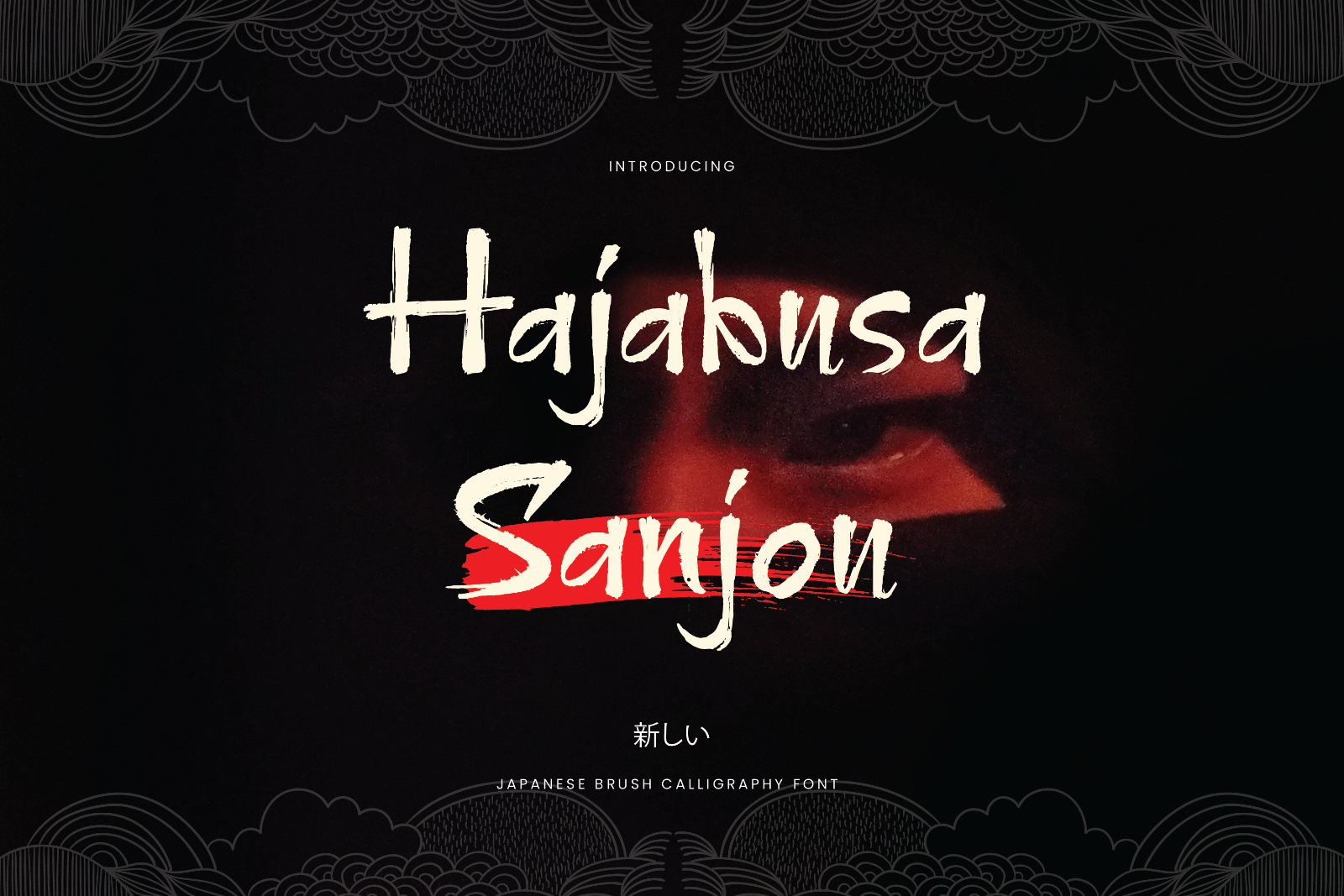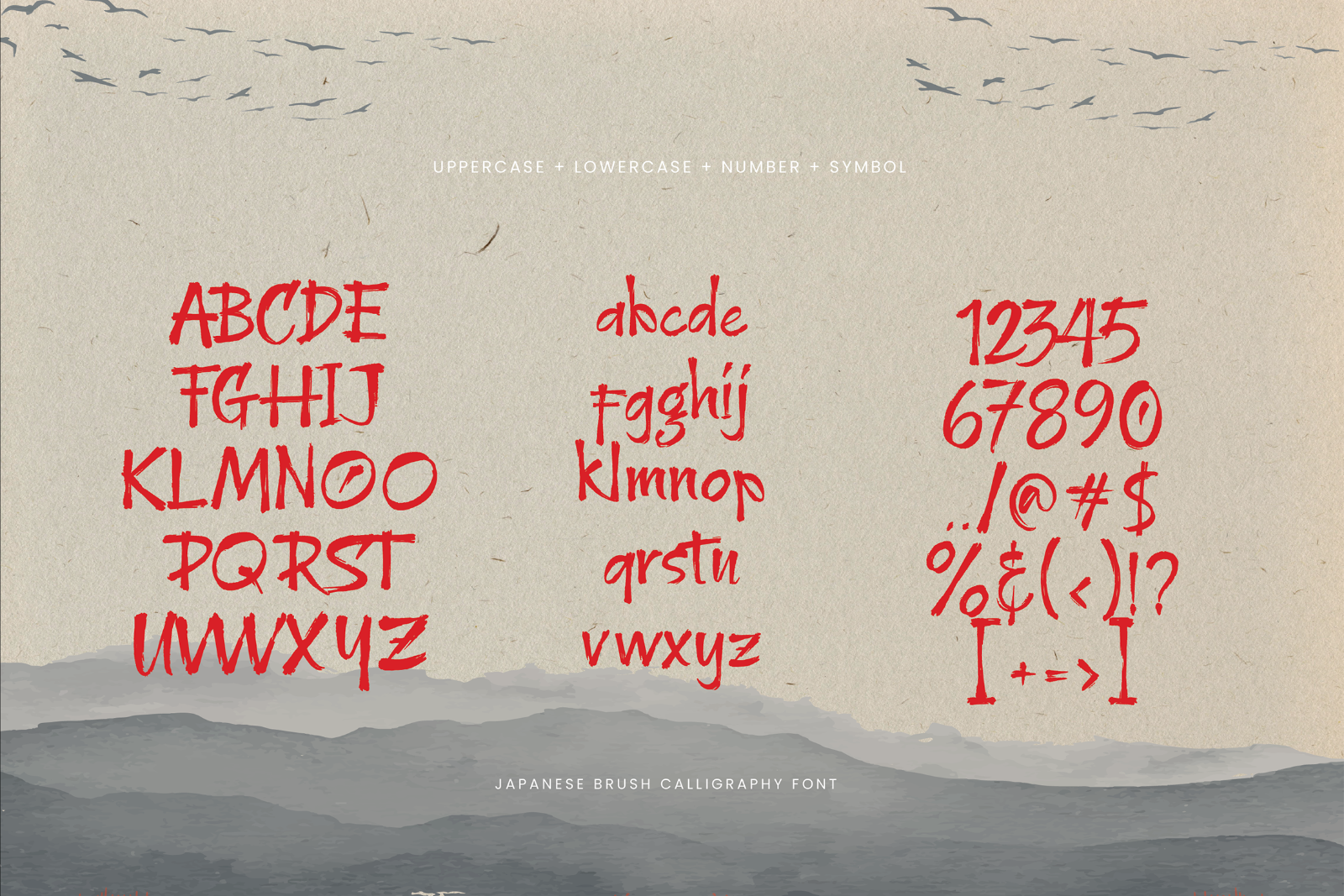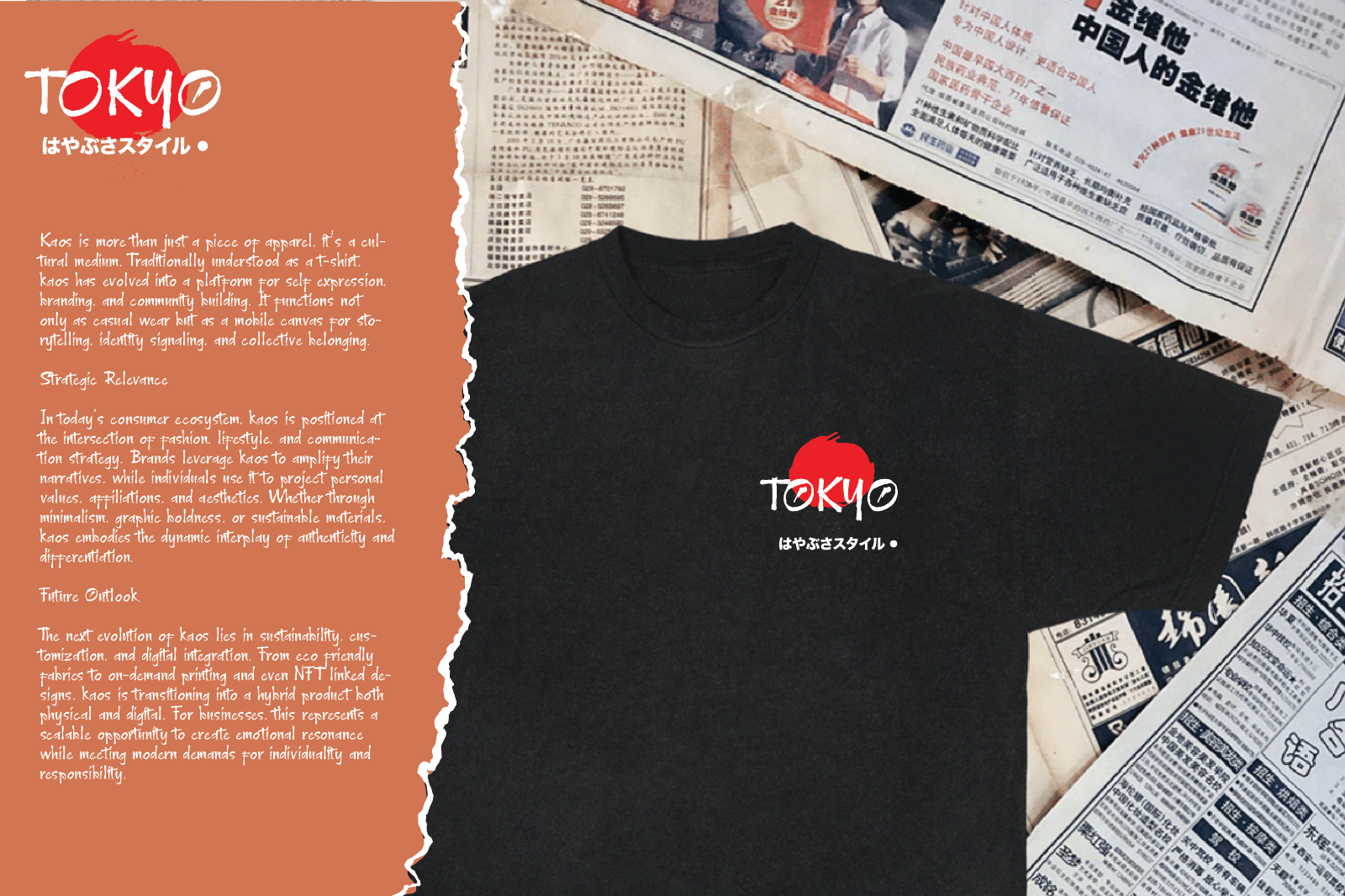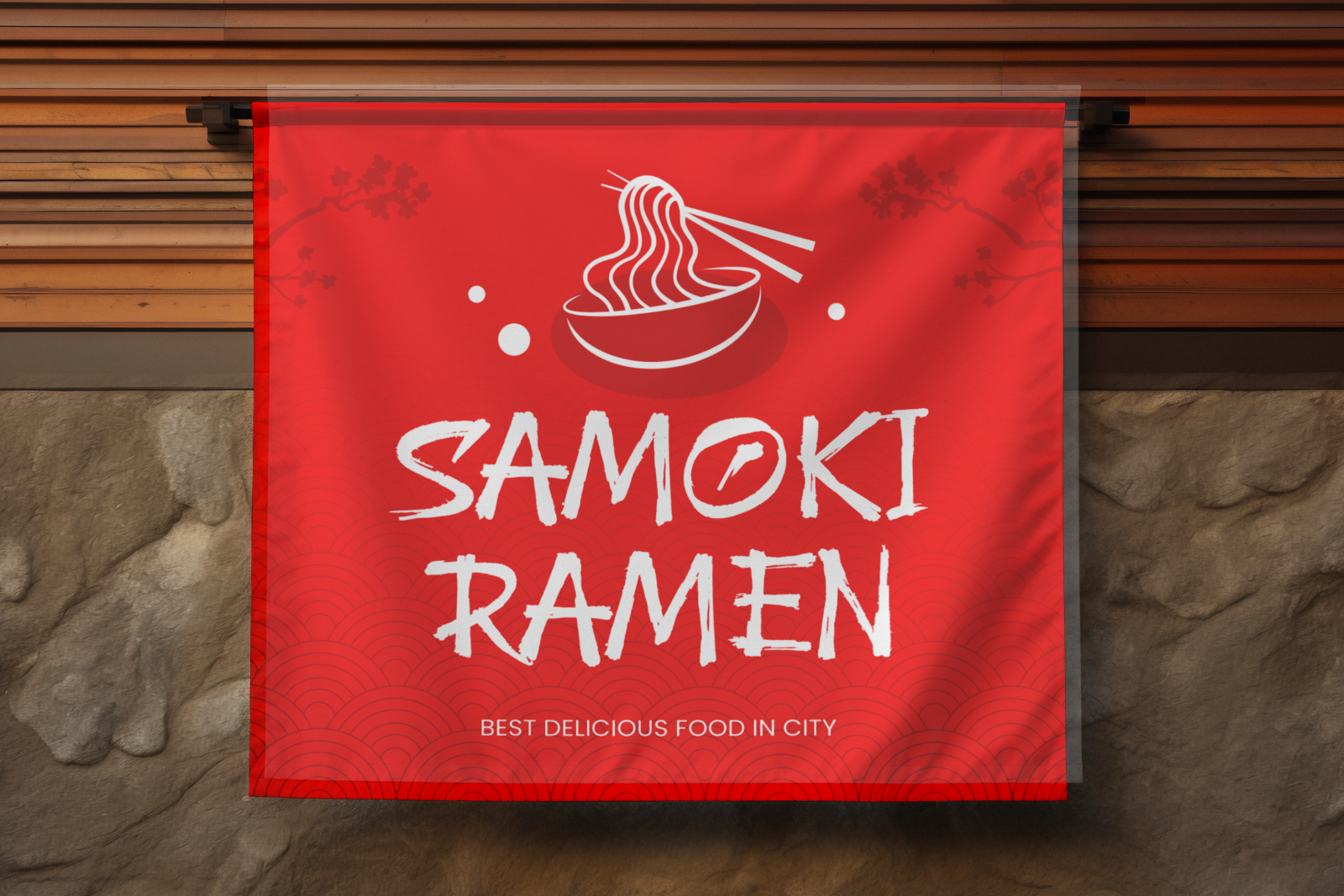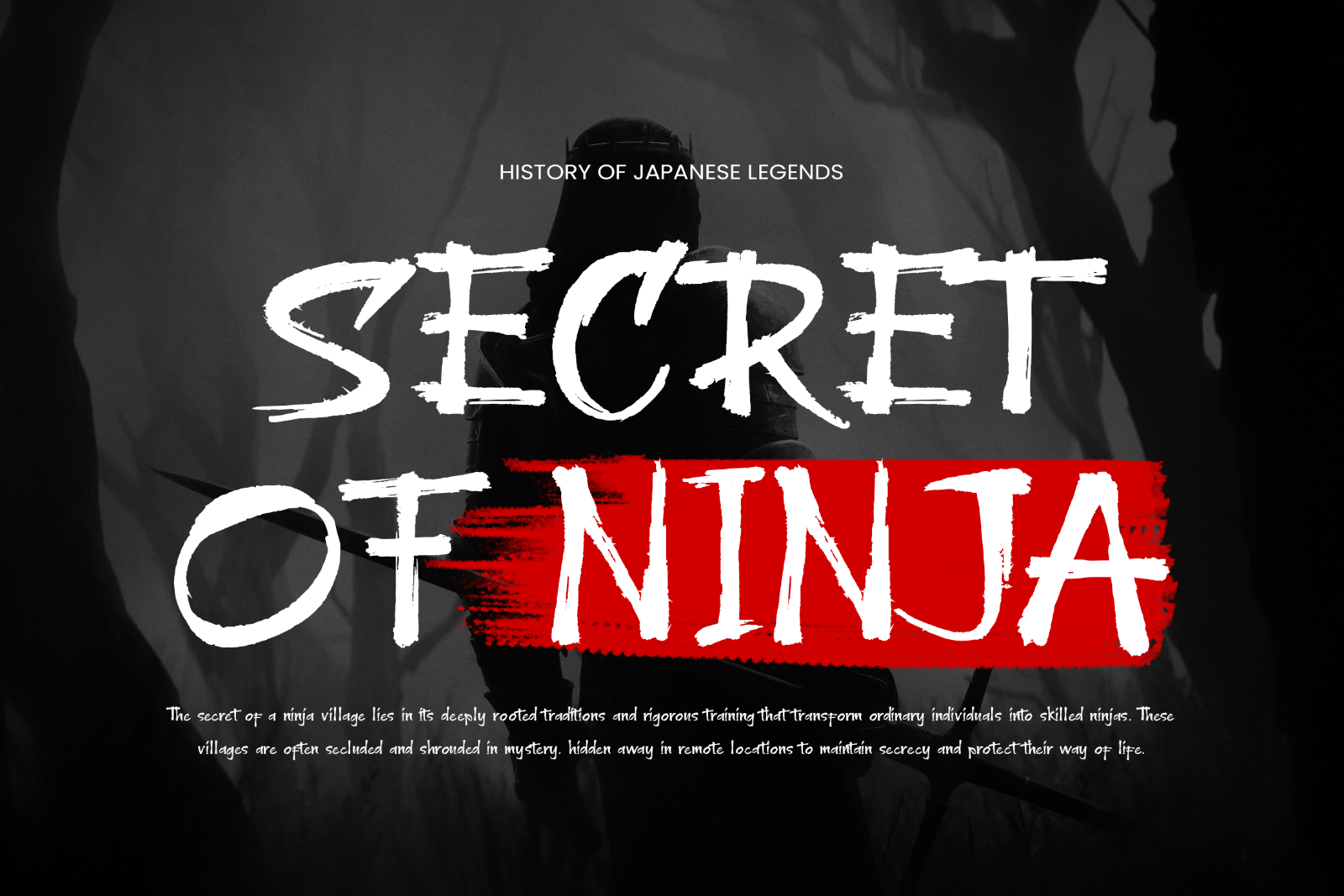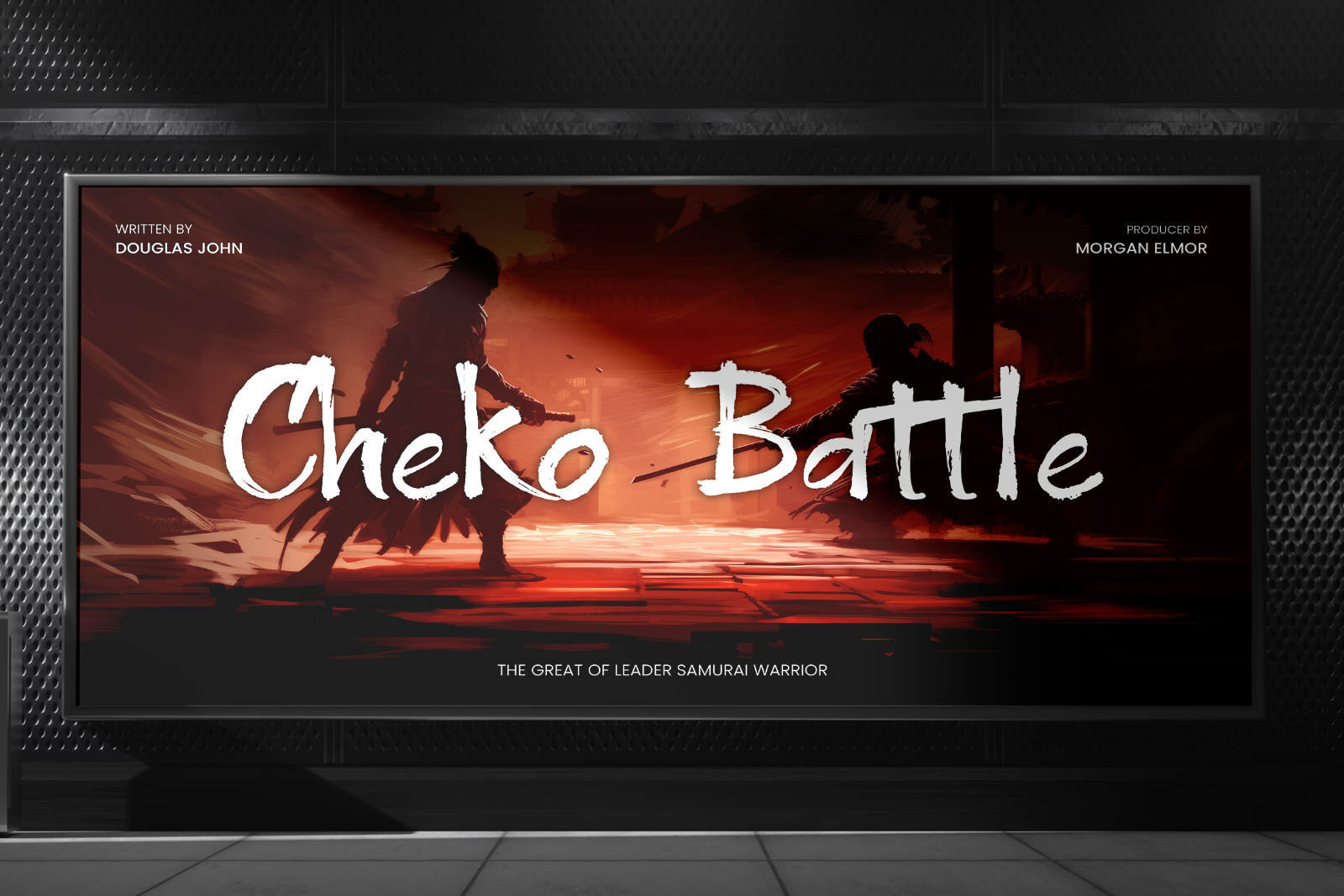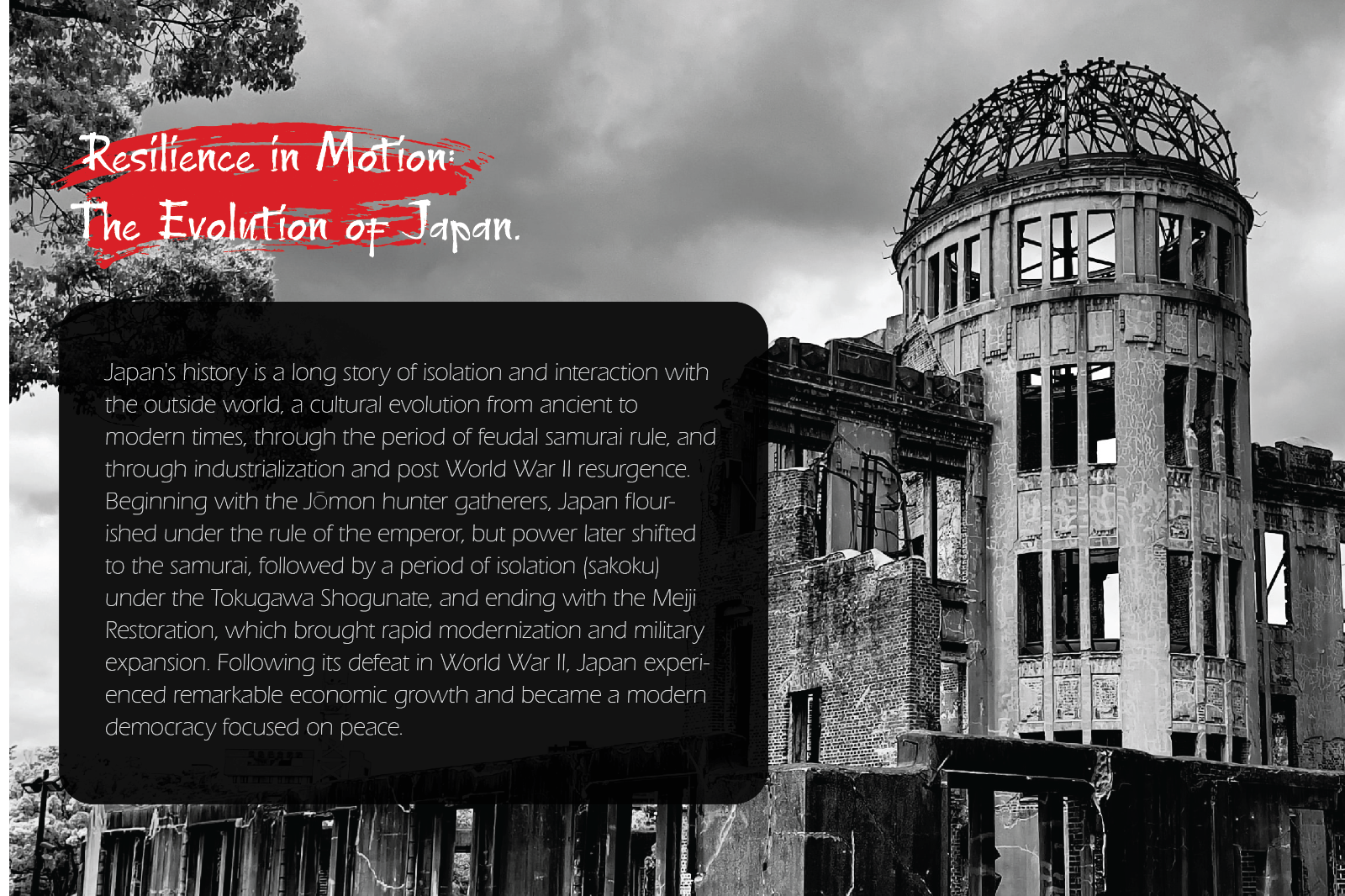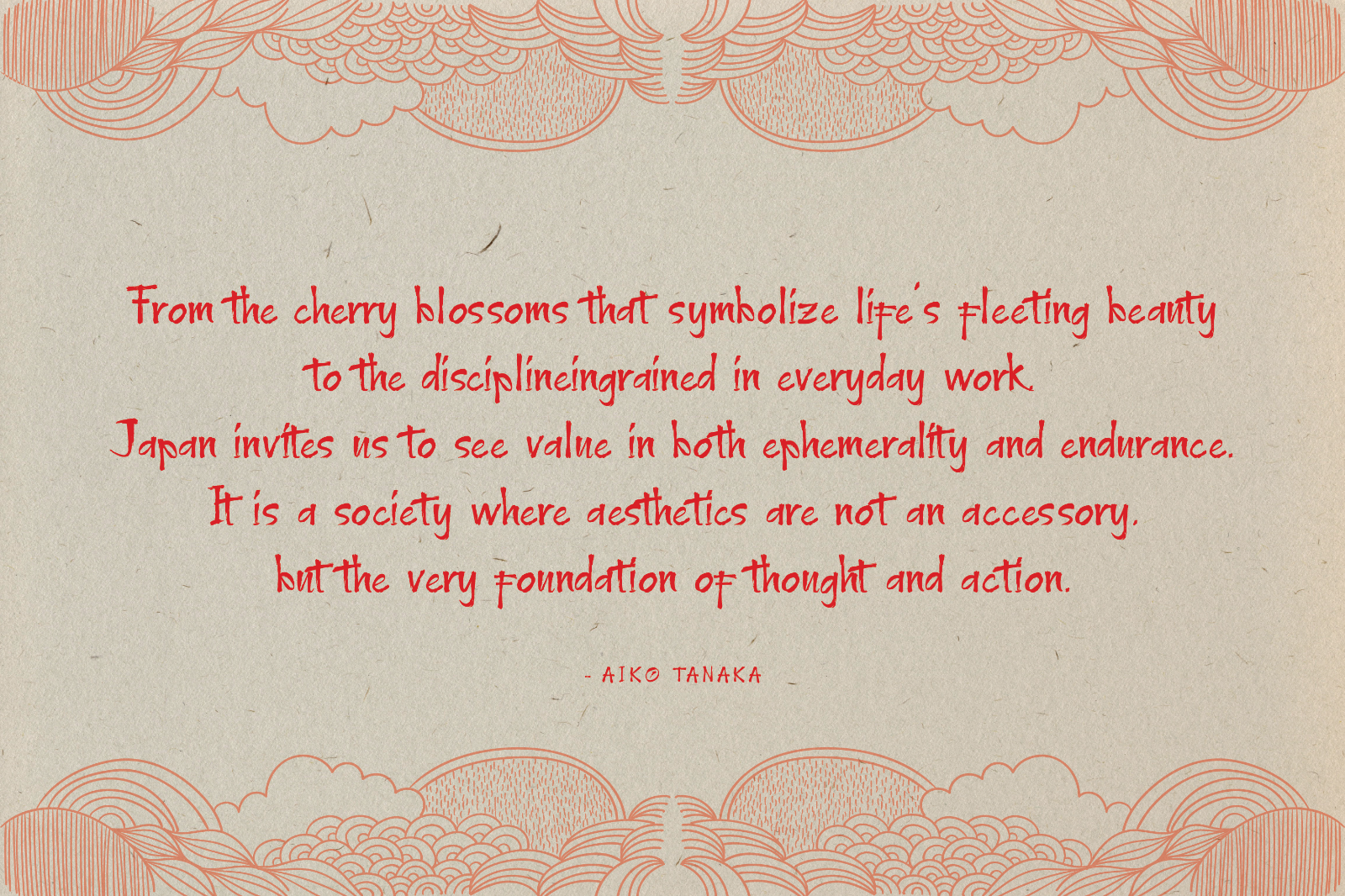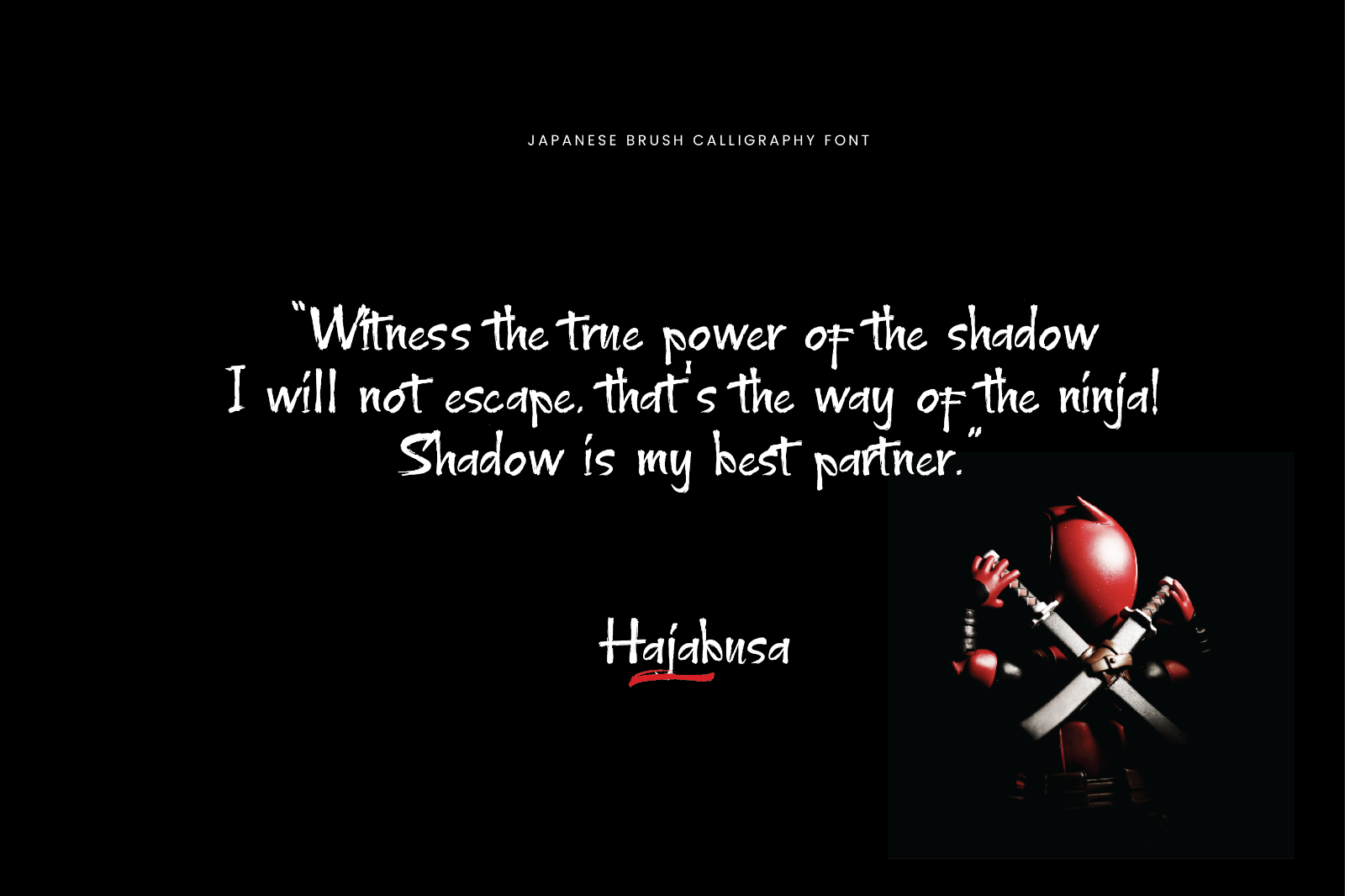
Hajabusa Sanjou is a japanese brush calligraphy font has create from textured brushstroke style, giving them a natural, dynamic, and handcrafted feel. Inspired by traditional japanese calligraphy.
This font evokes a sense of tradition and artistry associated with east asian calligraphy, with well-balanced combination of traditional brush calligraphy with modern typography, making it suitable for a variety of design contexts, from cultural to contemporary projects, artistic or cultural projects that want convey an asian aesthetic, especially japanese themes.
• Uppercase and Lowecase Characters.
• Numerals and Punctuations.
• Alternates and Ligatures.
• Multilingual Support.